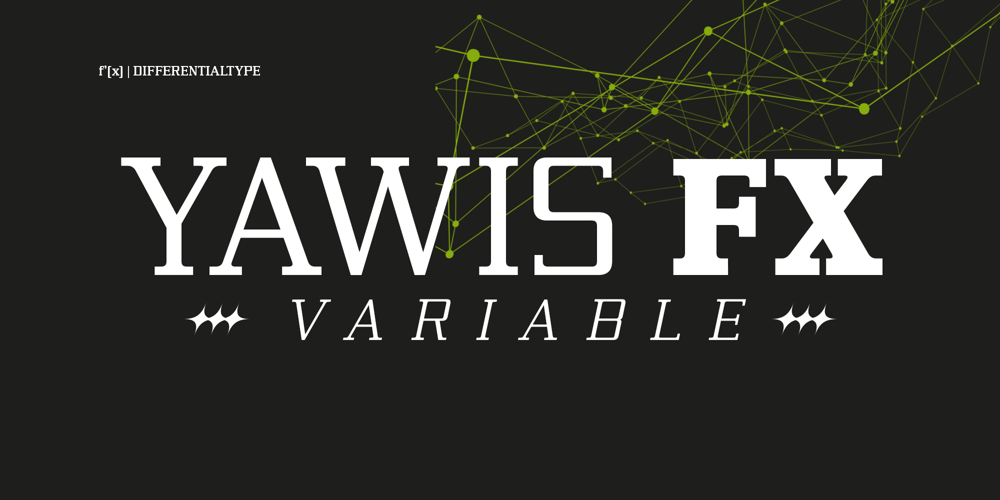
Yawis FX Variable Font Family was designed by Sidik Sidik and published by Differentialtype. Yawis FX Variable contains 1 styles and family package options. Illuminate your designs with Yawis FX Variable, a beautifully crafted serif font infused with a modern aesthetic drive. Carefully designed for adaptability, Yawis FX Variable fits into a wide range of design environments – from luxurious packaging to compelling branding, dynamic gaming interfaces to sophisticated apps, compelling news headlines to compelling editorial designs. Compiled with a versatile set of styles, Yawis FX Variable is your tool for exploring uncharted territory in the panorama of visual language. Incorporate Yawis FX Variable into your creations and watch it transform them into visually appealing works of art.